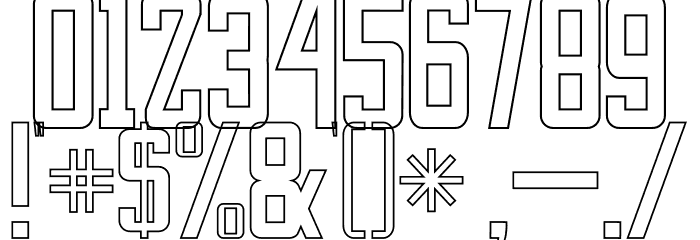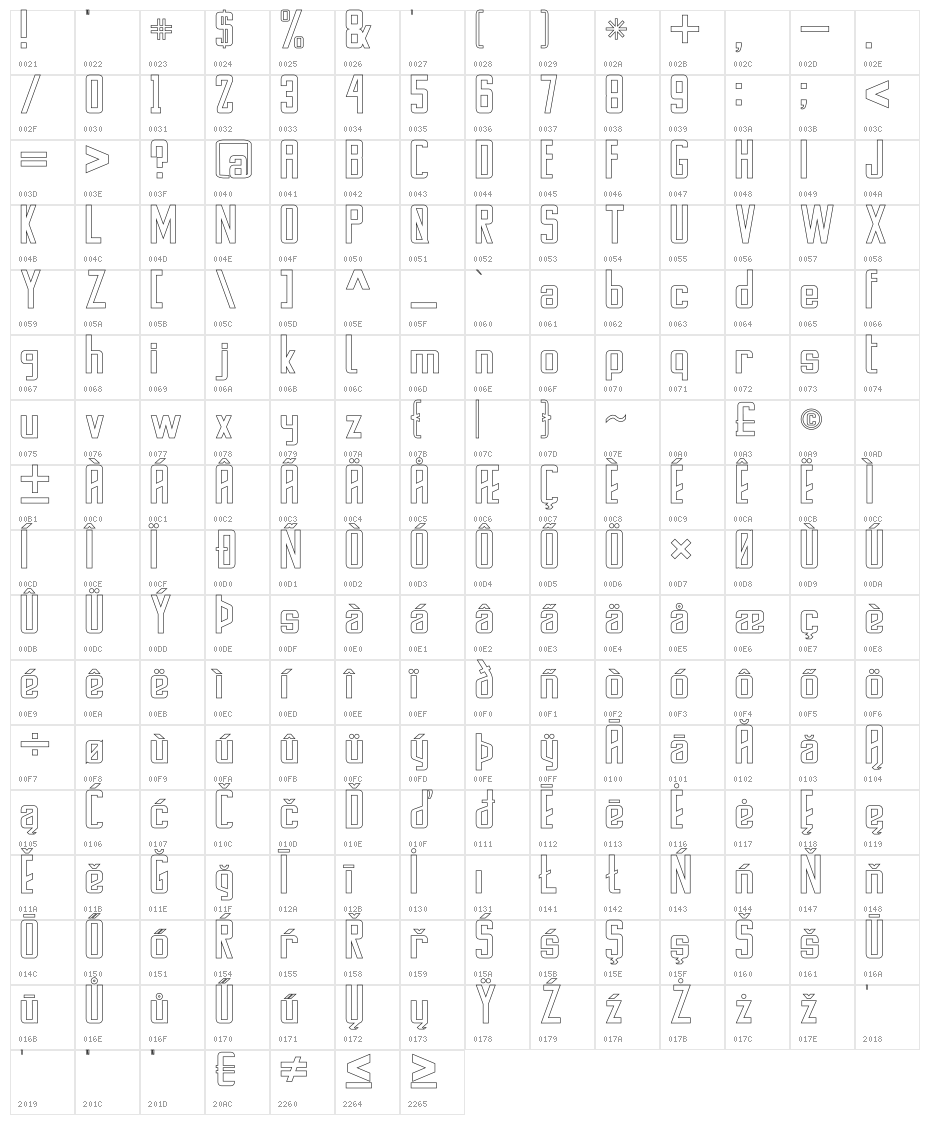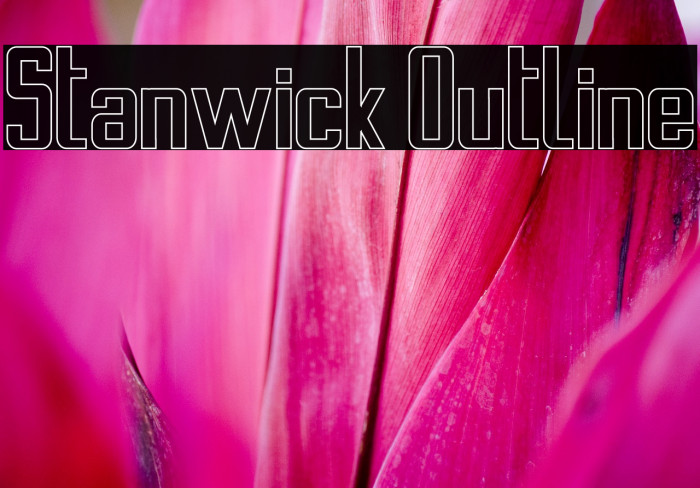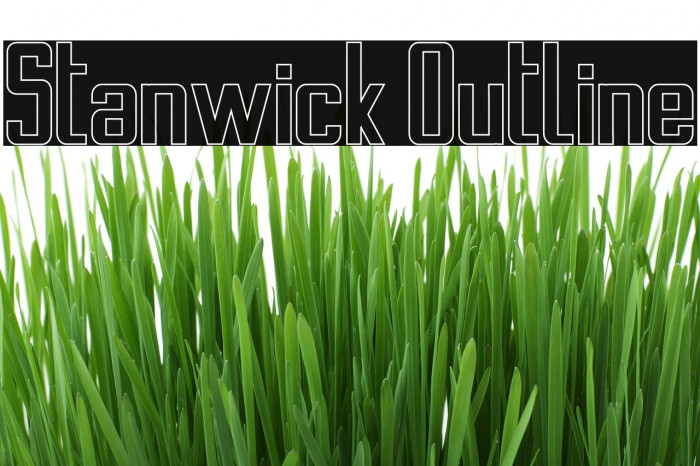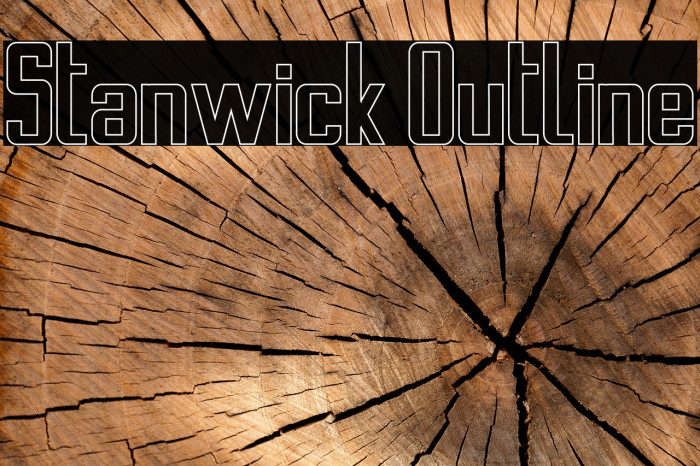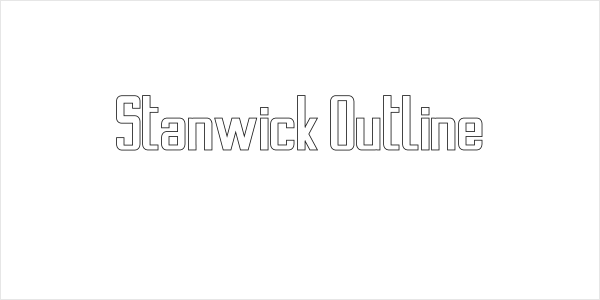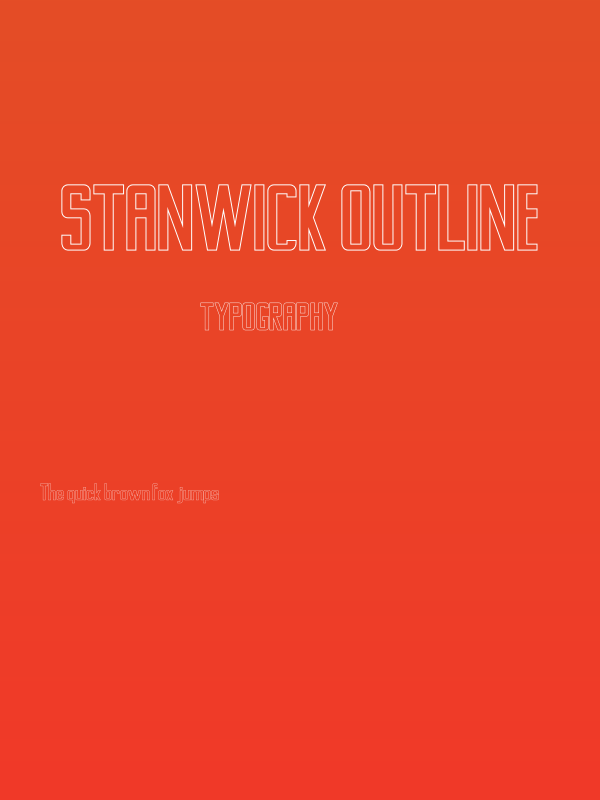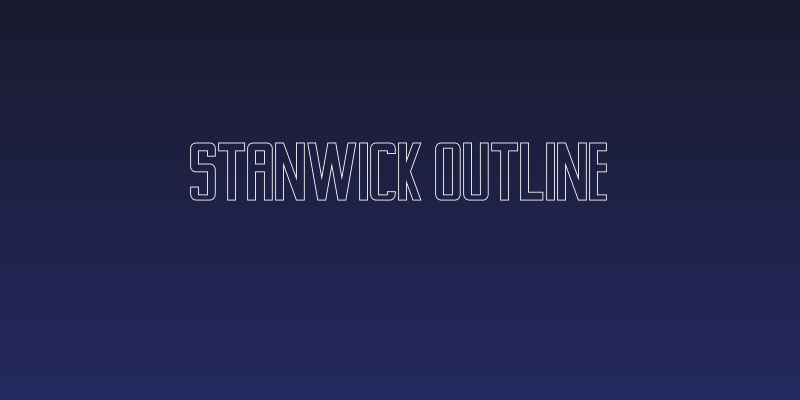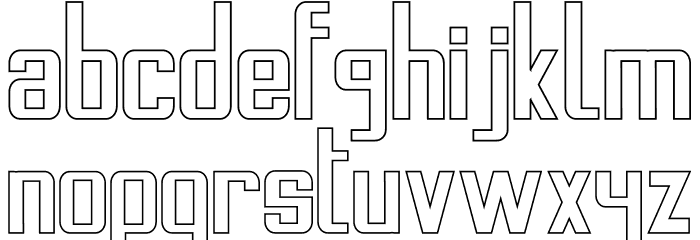
Stanwick Outline Font
Stanwick Outline Description
This font features a distinct outline style, characterized by its geometric and structured form. Each character is crafted with precision, showcasing clean lines and a modern aesthetic. The uppercase and lowercase letters maintain a consistent height, contributing to a uniform appearance. The numerals and special characters are designed to complement the alphabet, ensuring a cohesive look across all elements. The font's outline nature gives it a unique, airy feel, making it suitable for designs that require a contemporary and stylish touch. Its versatility allows it to be used in various creative projects, from digital media to print.